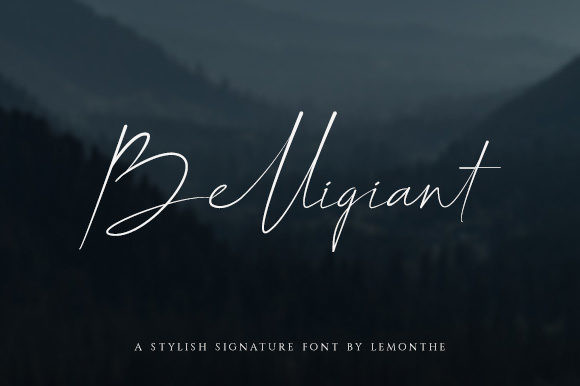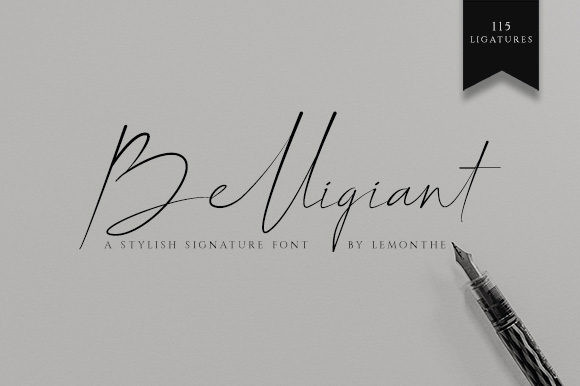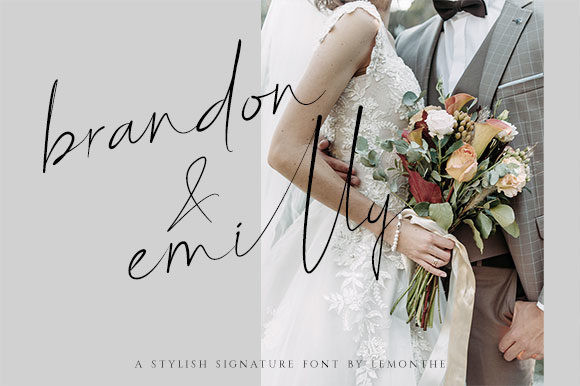
Belligiant Font
Belligiant is a beautiful signature font. It features an incredibly classic style, while still keeping a friendly feel. Belligiant is the perfect font for making original and outstanding designs.